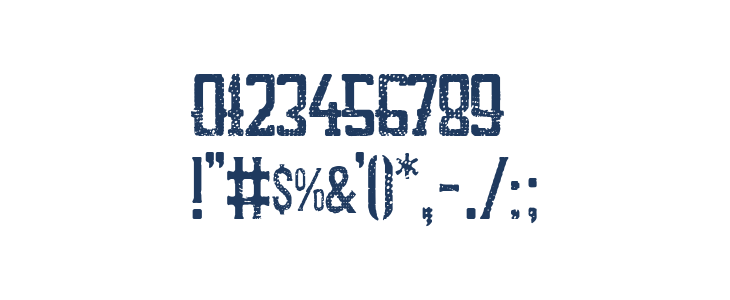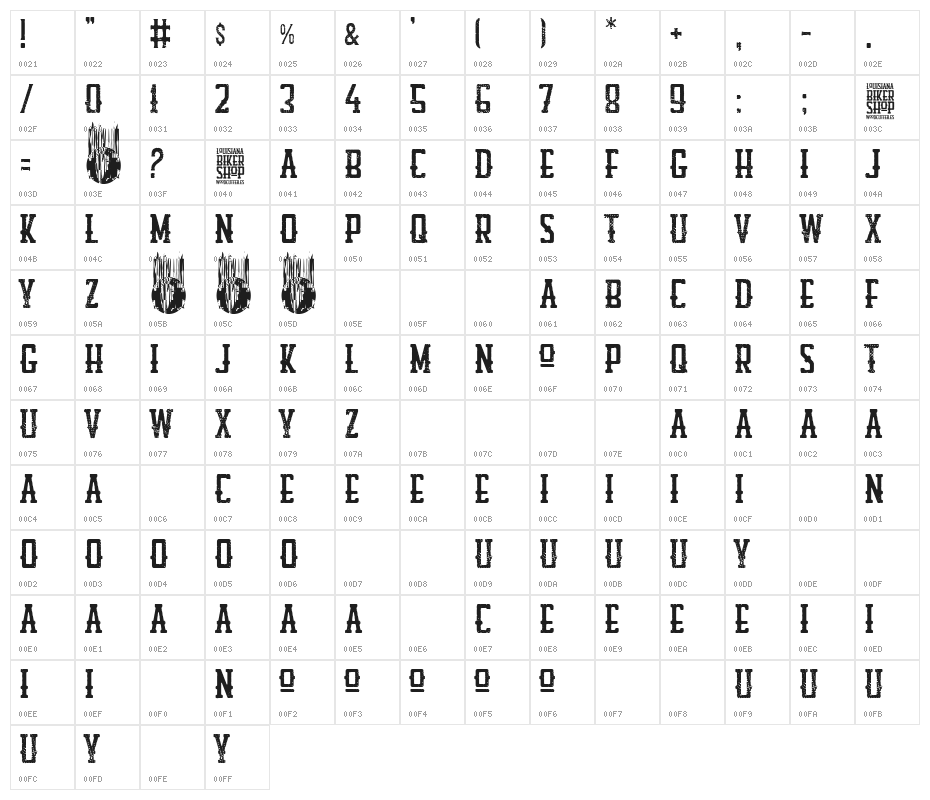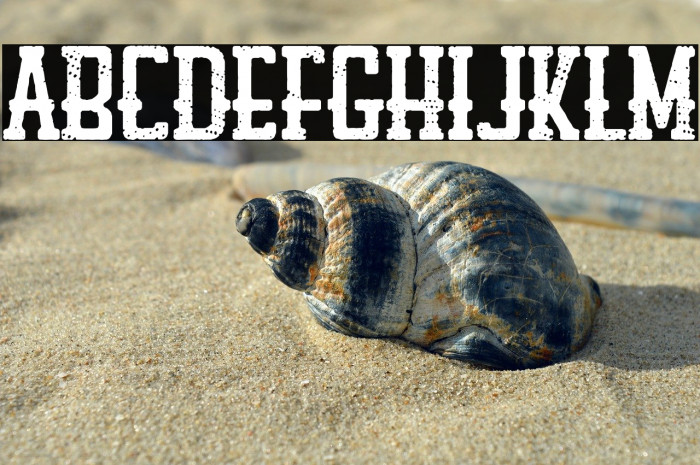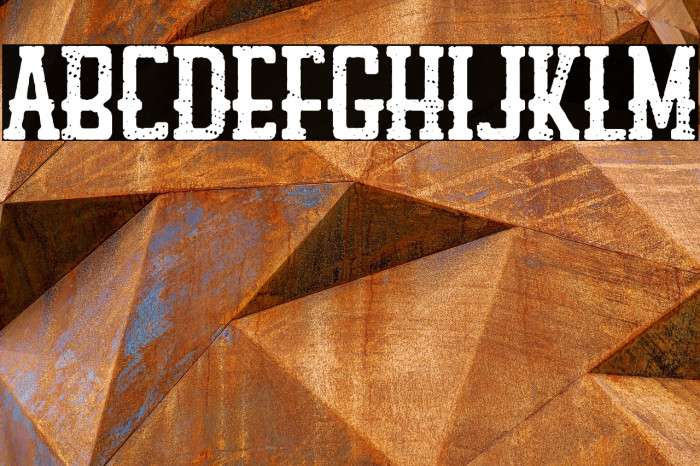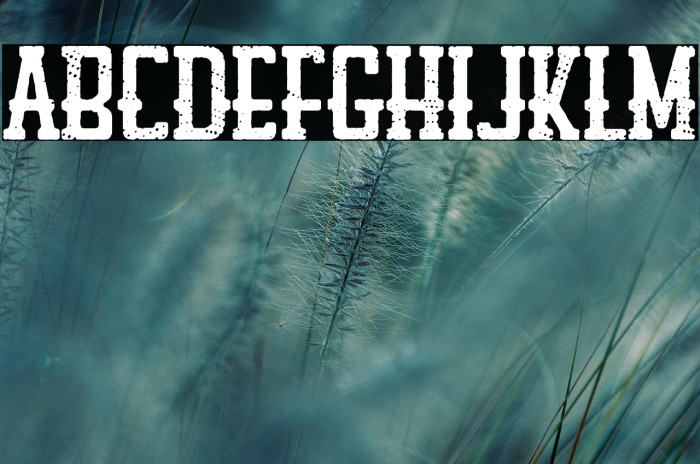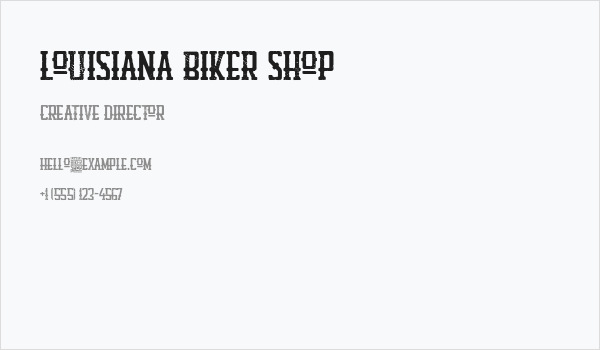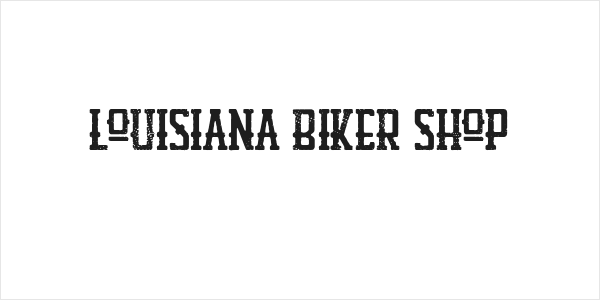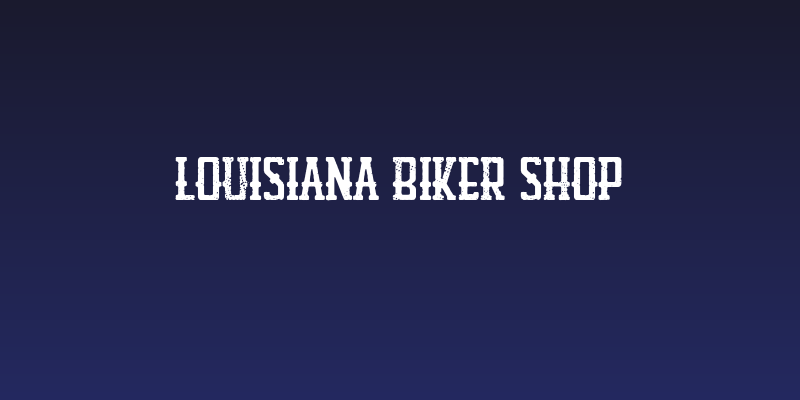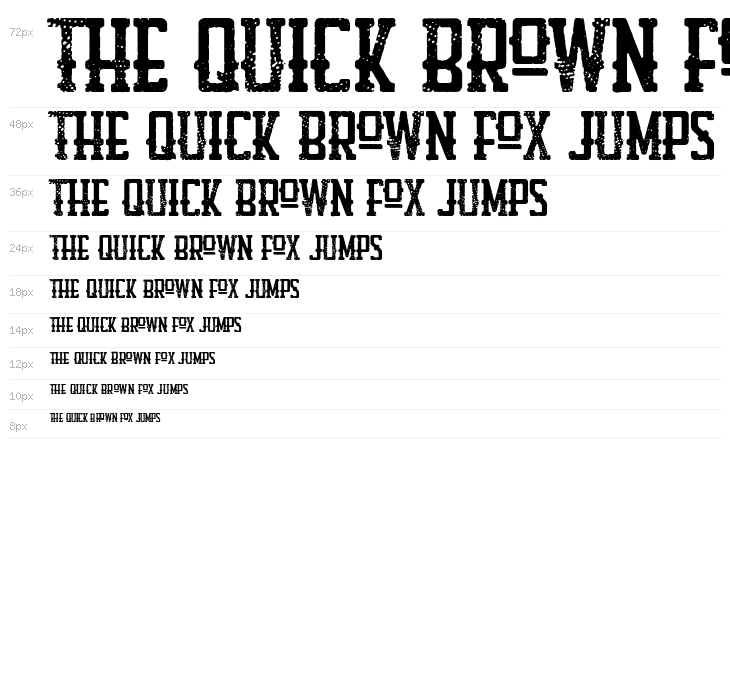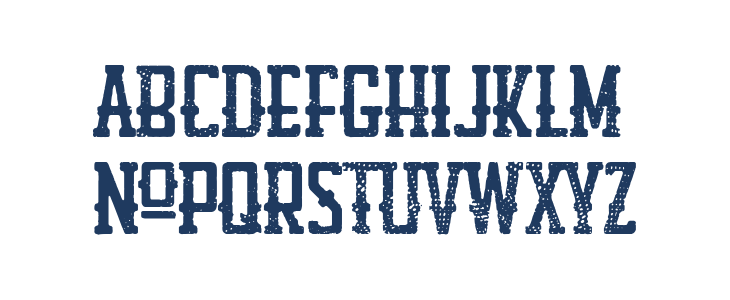
Louisiana Biker Shop Font
Louisiana Biker Shop Description
This font features a bold, rugged design with a distressed texture that gives it a vintage, worn-out look. The characters are blocky and robust, with a slab serif style that adds to its strong, impactful appearance. The texture within each letter mimics a weathered, gritty surface, making it ideal for designs that require a rustic or industrial feel. The uppercase and lowercase letters maintain a consistent style, while the numbers and special characters complement the overall aesthetic. This font is perfect for projects that aim to convey strength, durability, and a touch of nostalgia.